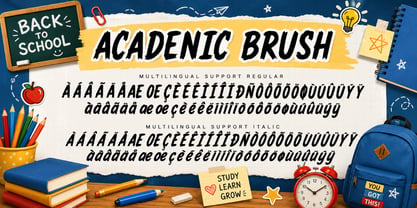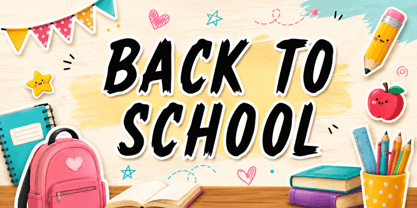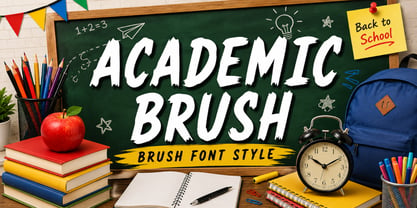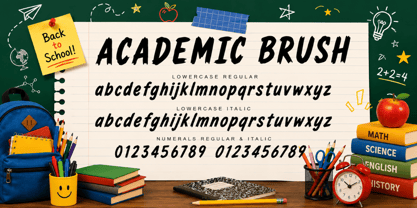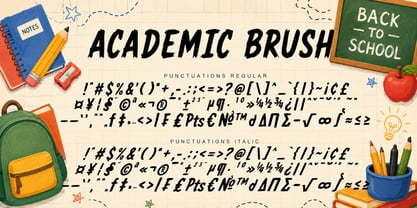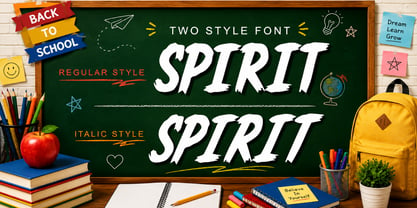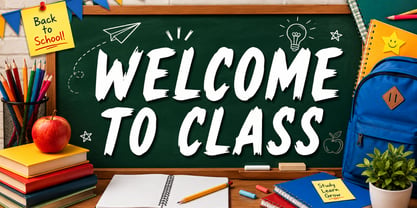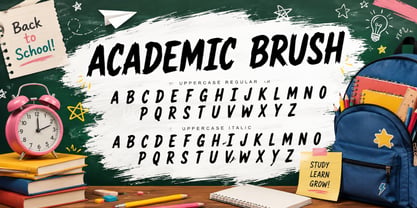
Academic Brush
by Yoga Letter
The Academic Brush Font Family was designed by Isroni Yoga Prasetya and published by Yoga Letter. Academic Brush contains 2 styles and family package options. More about this family
Academic Brush is a bold and energetic brush font that captures the excitement of back-to-school adventures. Its hand-painted strokes deliver a fun, cheerful, and eye-catching aesthetic, making it ideal for a variety of creative projects. This versatile font is perfect for classroom designs, educational posters, school merchandise, stickers, and printable crafts. Infuse your designs with a fresh, youthful, and creative touch using this unique brush font style, which stands out with its dynamic weights and expressive character forms.
Designers: Isroni Yoga Prasetya
Foundry: Yoga Letter